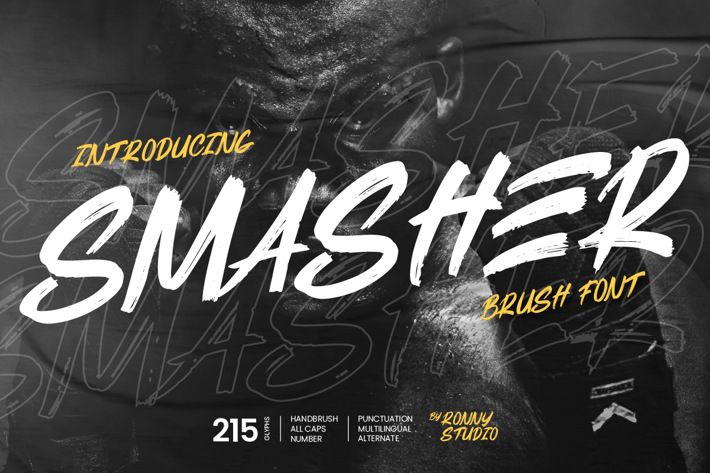
Smasher - Brush Font
Smasher Brush Font is a typeface that has a strong and energetic touch. With its characteristic rough brush strokes and thick, prominent lines, this font gives off a bold and vibrant impression. Suitable for titles that want to emphasize courage and strength in graphic design, posters or branding.
- Uppercase & Lowercase All Caps
- numbers & punctuation
- Alternate
- Multilingual